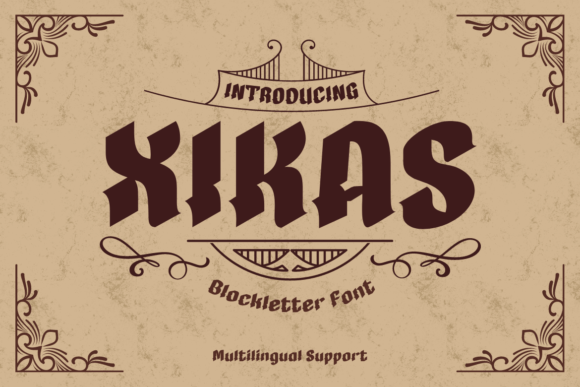
Unleash the Enigmatic Charm of Xikas: A Blackletter Font Steeped in Mystery
Embark on a captivating journey through the realm of typography with Xikas, a blackletter font that weaves a spell of mystery and intrigue. Crafted by the visionary minds at twinletter, Xikas is not just a font; it's an artistic expression that breathes life into your creative endeavors.
With its classic and elegant demeanor, Xikas is a timeless treasure that transcends the boundaries of time. Its striking details and confident elegance resonate with a universal appeal, captivating hearts and minds across all genders, ages, and tastes.
As you delve into the depths of Xikas, you'll discover a versatile font that adapts seamlessly to a myriad of projects. Whether you're weaving tales of mystery and intrigue, crafting elegant invitations, or designing captivating logos, Xikas rises to the challenge, lending its enchanting aura to every creation.
Indulge in a symphony of vintage charm and timeless elegance as Xikas graces your designs with an air of sophistication and luxury. Its strong personality shines through, leaving an indelible mark on every project it adorns.